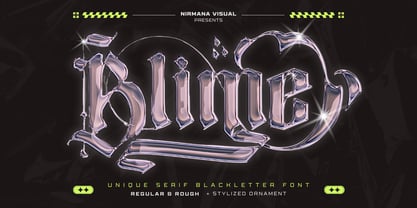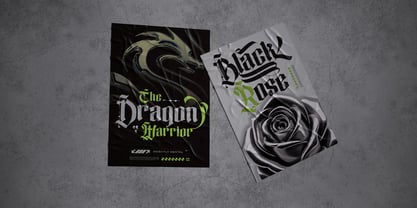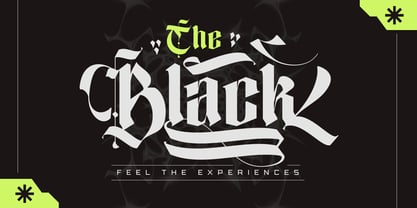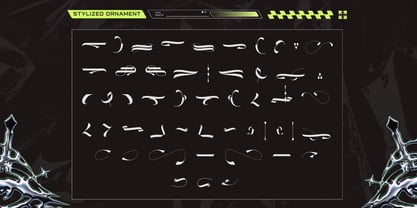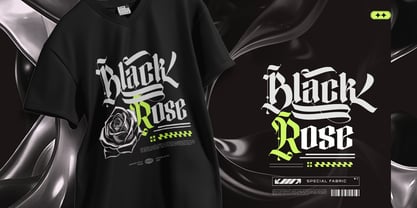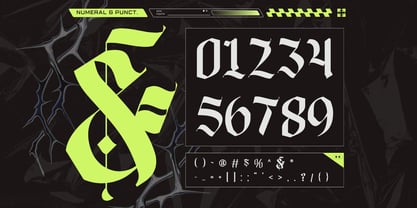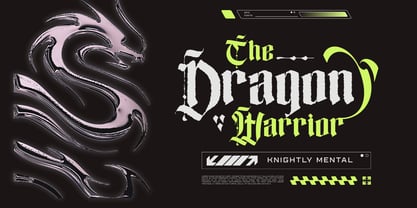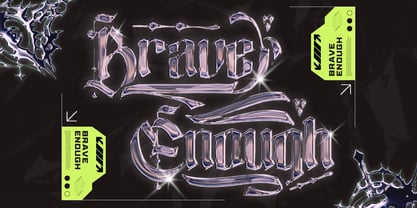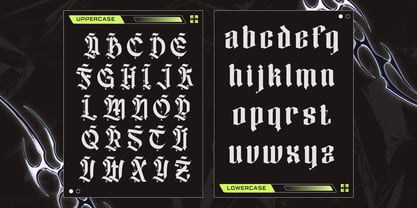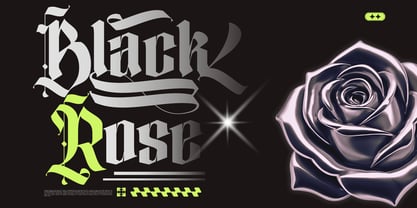
Blime Blackletter
by Nirmana Visual
The Blime Blackletter Font Family was designed by Sigit Dwipa and published by Nirmana Visual. Blime Blackletter contains 2 styles and family package options. More about this family
Blime Blackletter is a bold, aggressive type style inspired by classic Gothic calligraphy and modern extreme metal aesthetics. Sharp angles, fractured strokes, and dramatic contrast give it a dark, powerful presence perfect for metal band logos and heavy branding. Its raw, rebellious energy evokes underground culture, intensity, and mystique—making it ideal for album covers, merchandise, and identities that demand a brutal, unforgettable visual impact.